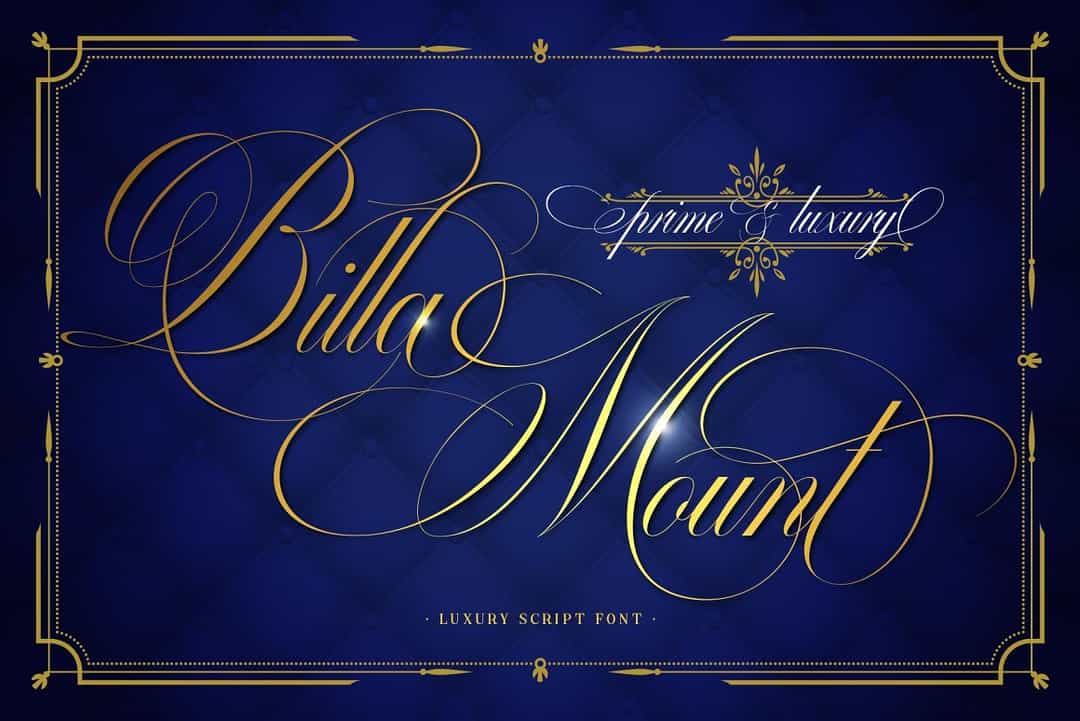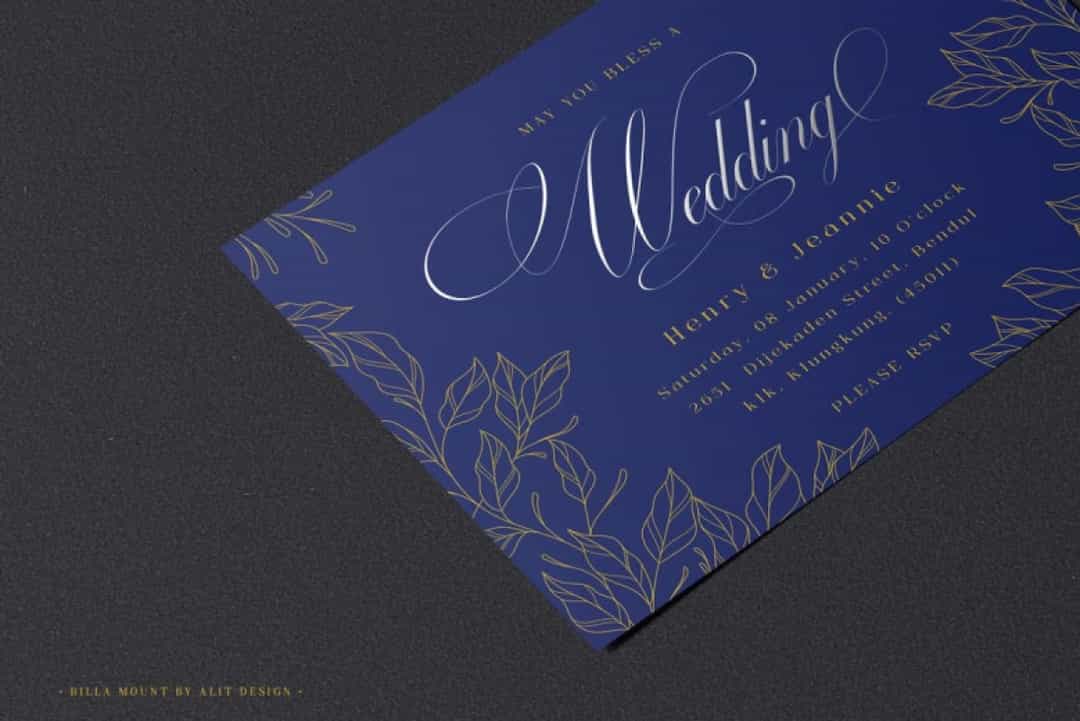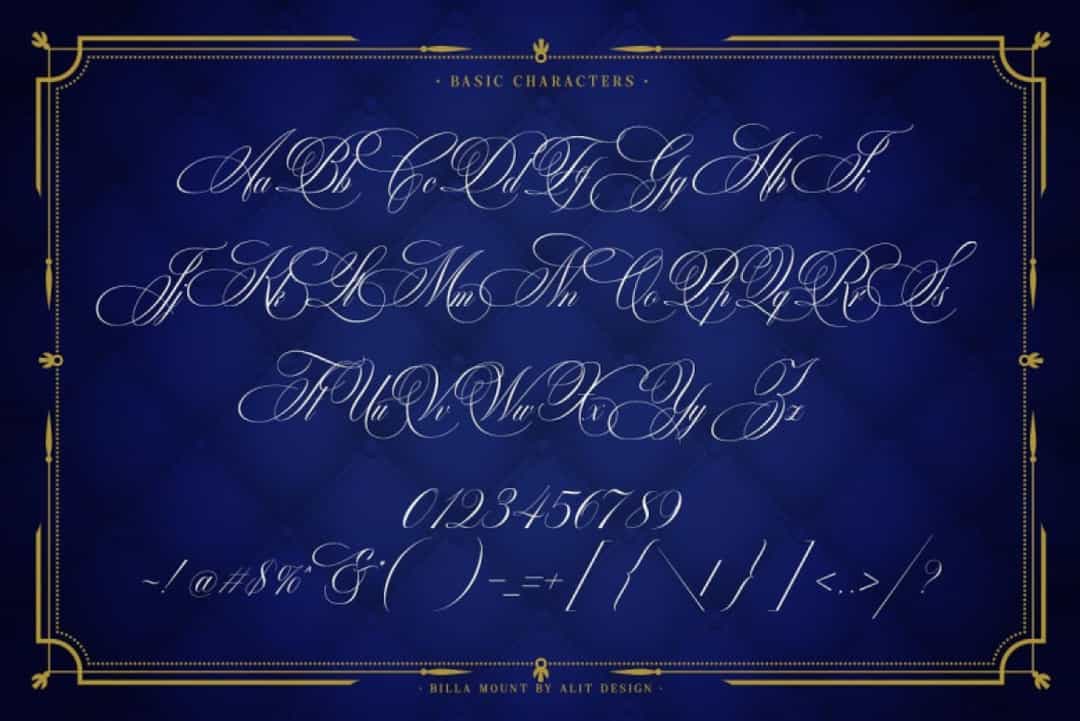
Billa Mount Calligraphy Font is inspired by traditional letterforms that are elegant and lively. This font offers an elegant Script style with many alternative fonts available as well as elegant swashes – making this font easy for creating sophisticated Victorian-inspired designs.